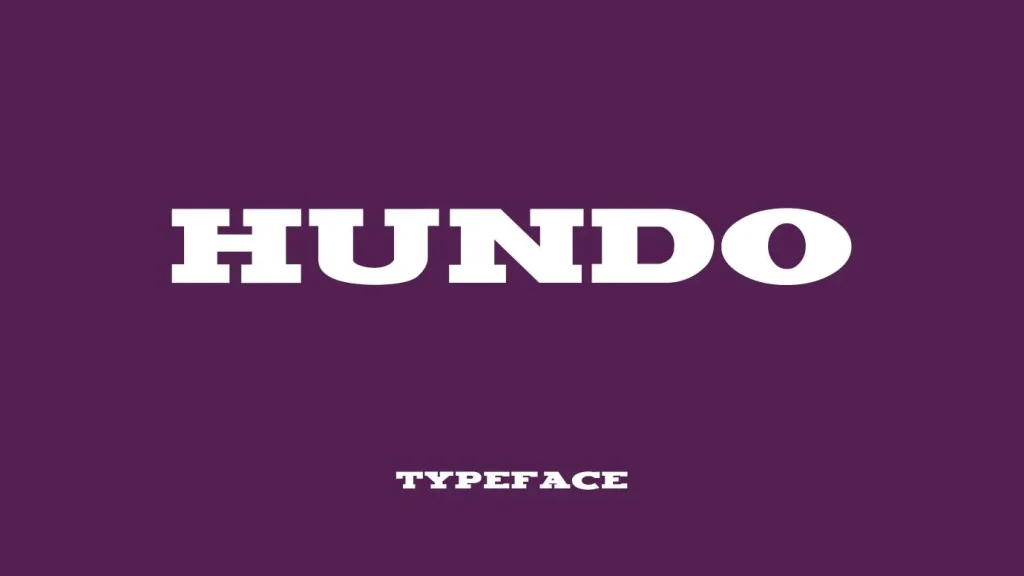
Hundo Font is a serif style that was designed by Sharkshock. The text style may be an incredible choice to extend the noticeable quality. Although the typography is conventional, the essential components are great.
It is an incredible textual style to create a fun design. It is supported by OTF and TTF. Use it as a modern font. As well as having a readable texture and a unique appearance, this font is gorgeous.
This font design contributes to its simple and noticeable interpretation. It has distinctive characters that can be used in all kinds of design. All sets of characters, both in lower and upper are included in this font style.
Some Features of Hundo Font
It is best for attractive newspaper designs, beautiful e-book covers, and comparable design use. To assess the typeface, in this segment there's a set of which we select 31 extraordinary characters or with highlights, 26 letters of the letter set in upper and lower case, and the numbering from 10.
The letters will be the same after being introduced in your working framework. This typeface can be utilized for, logos and branding, photographs, notices, watermarks, social media posts, item bundling, wedding plans, and amazing occasions.
There are multiple features included in this font. In writing articles, this font is often used to create stunning and readable results. It can be used anywhere where you want to create a new signature.
It'll also be utilized to form an excellent picture and content in numerous colors and styles. As a result of its fabulous and signature characteristics, it is perfect for making charming designs such as logotypes, invitation cards, social media posts, video games, book cover presentations, website patterns, labeling projects, and printing projects.
To create a unique and eye-catching design, you should use this font in combination with other fonts. Any occasion will be enhanced by this beautiful, romantic font.
What kind of textual style is the Hundo Font?
Who created Hundo Font?
The serif style is designed by Sharkshock.
Where Can I utilize the Hundo Font?
It is a serif style that was designed by Sharkshock. The text style may be an incredible choice to extend the noticeable quality.